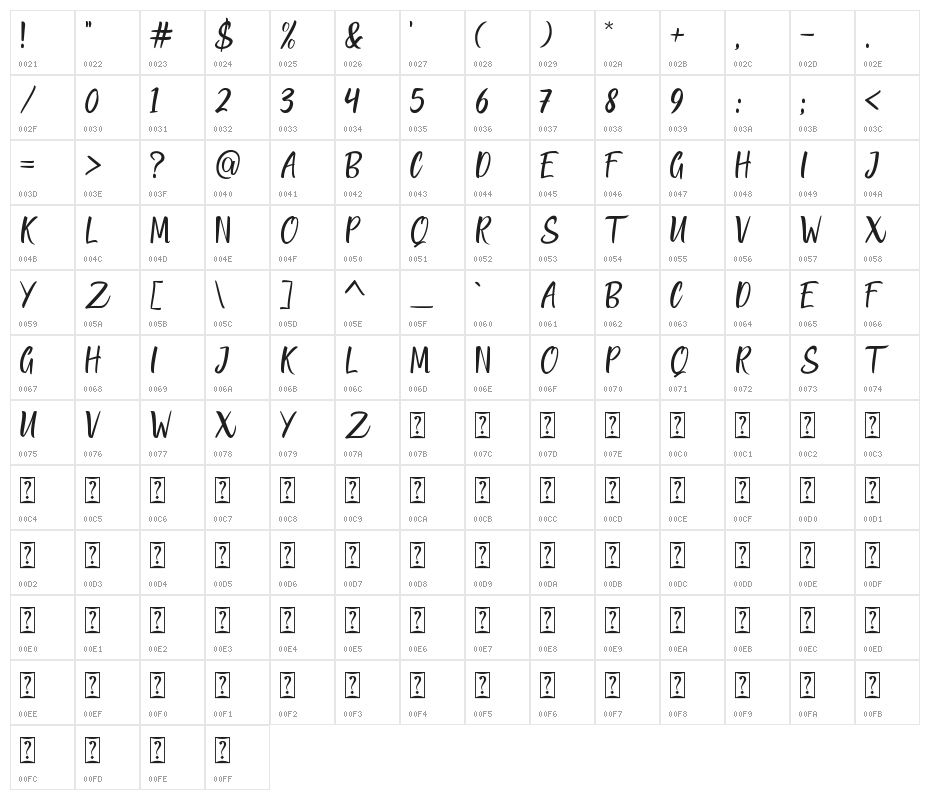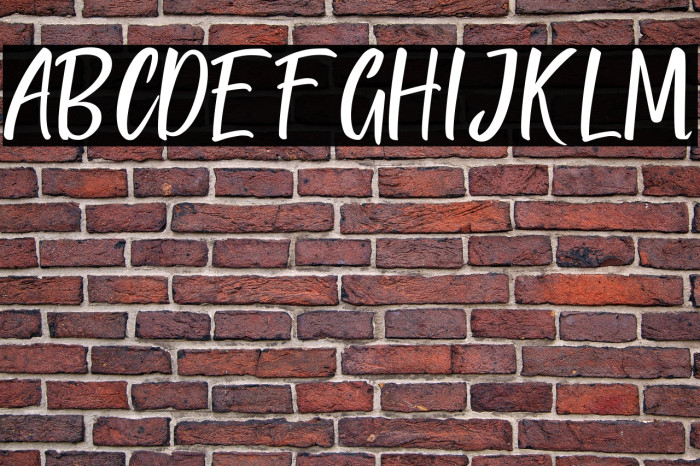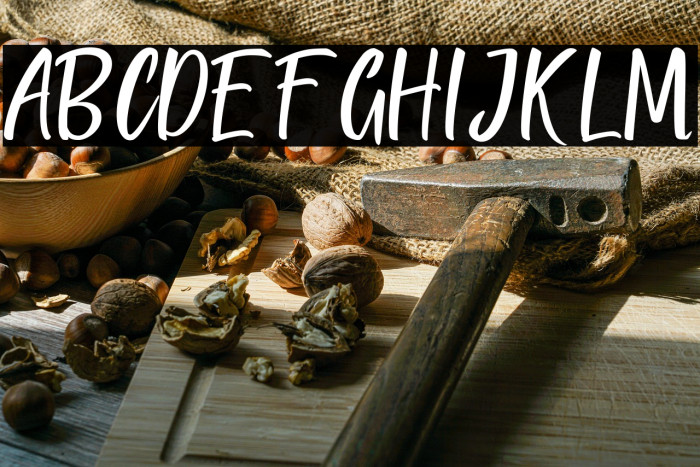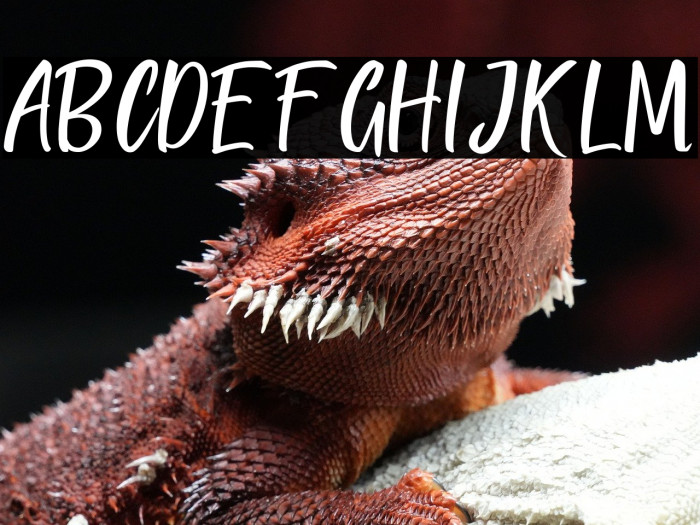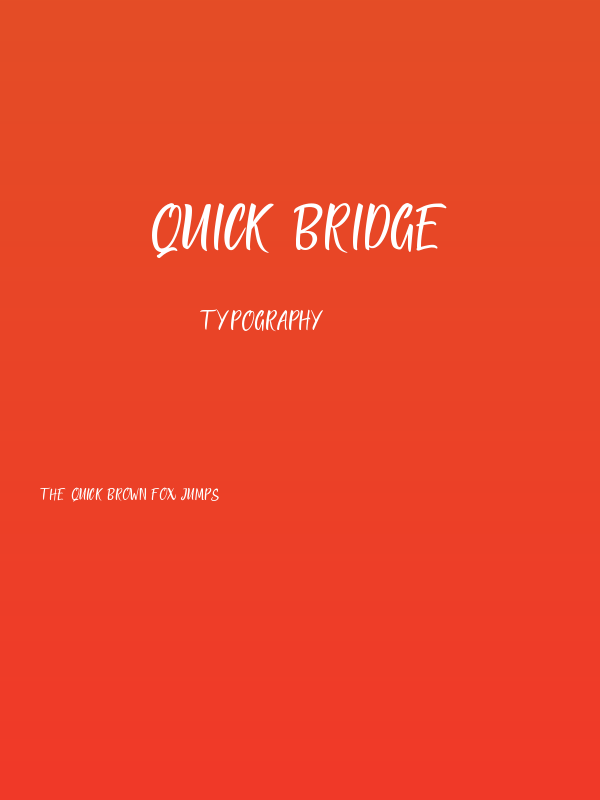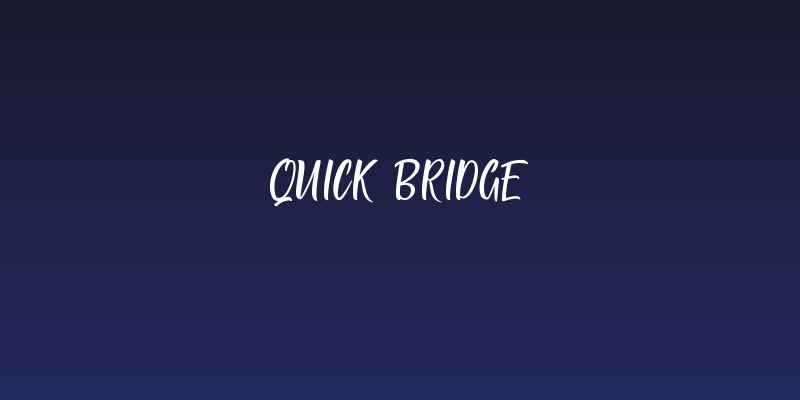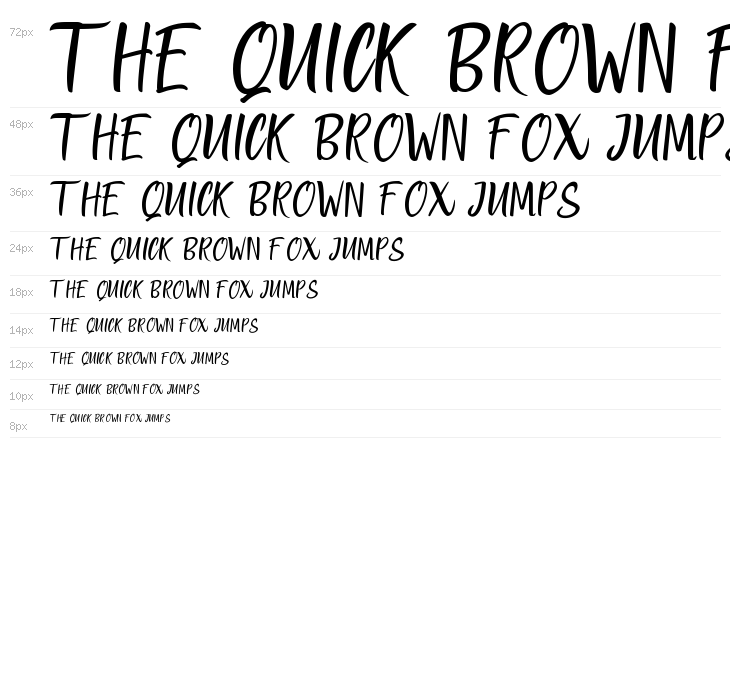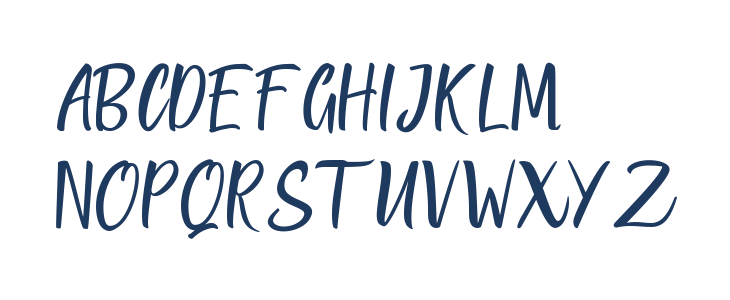
QUICK BRIDGE Font
QUICK BRIDGE Description
This font features a dynamic and energetic script style, characterized by its fluid, handwritten appearance. The letters are slightly slanted, giving a sense of movement and spontaneity. The strokes are bold and confident, with a consistent thickness that maintains readability while adding a touch of flair. The uppercase and lowercase letters are well-balanced, and the numerals are clear and distinct. Special characters are integrated seamlessly, enhancing the font's versatility. This style is perfect for projects that require a personal, yet professional touch.